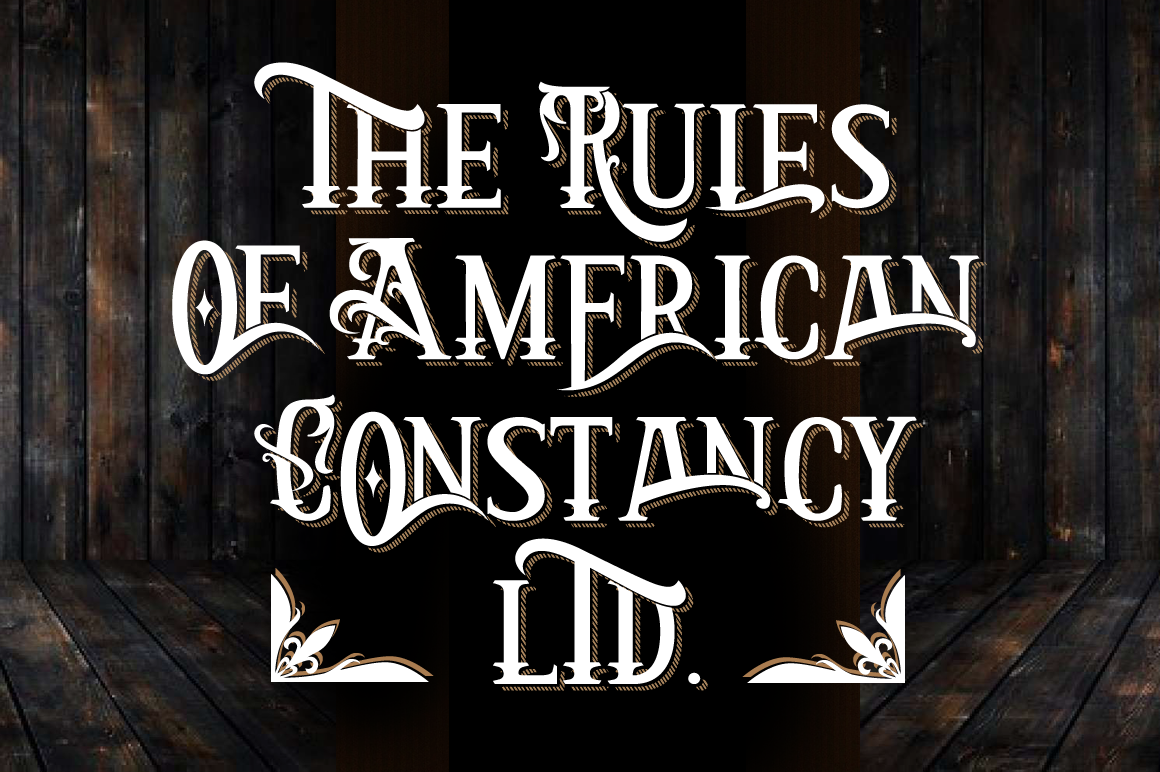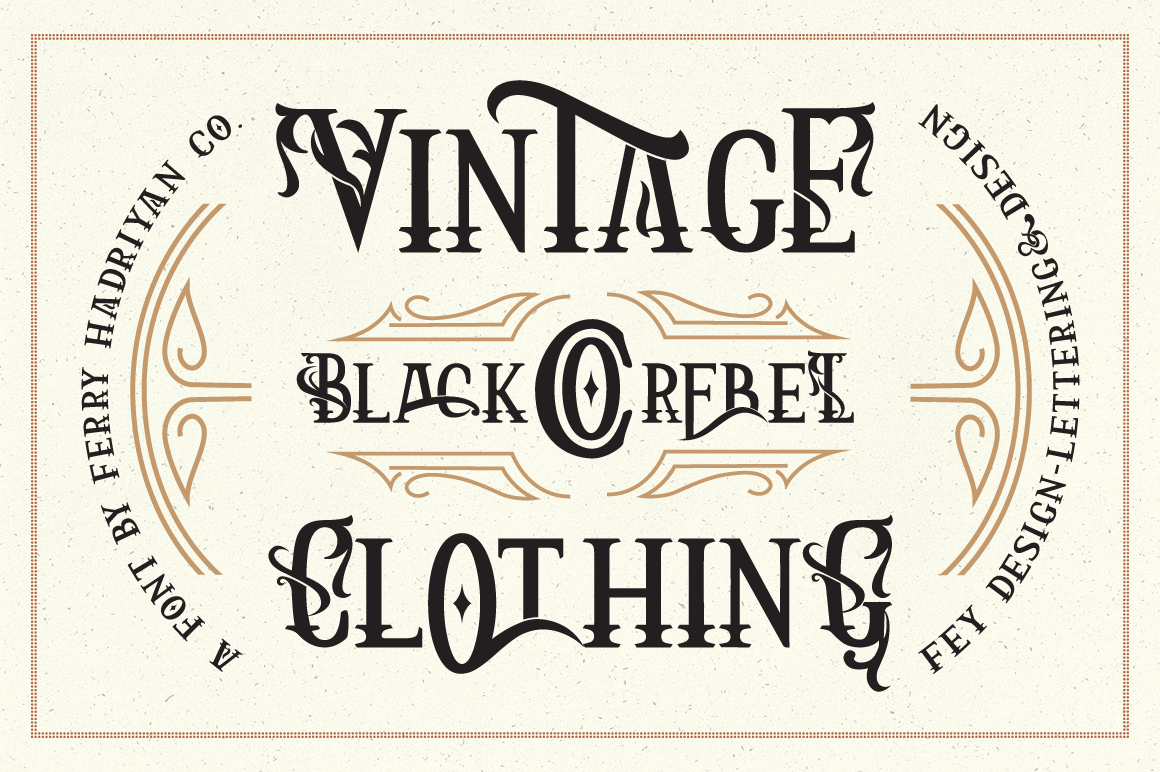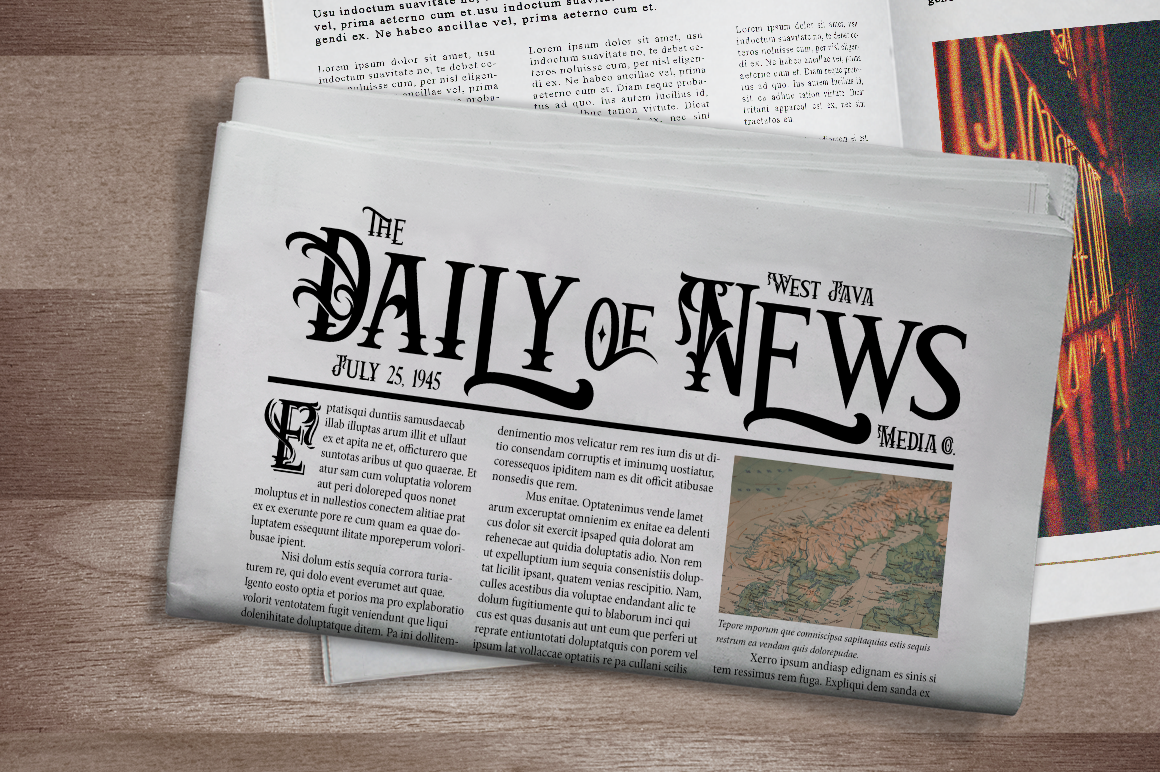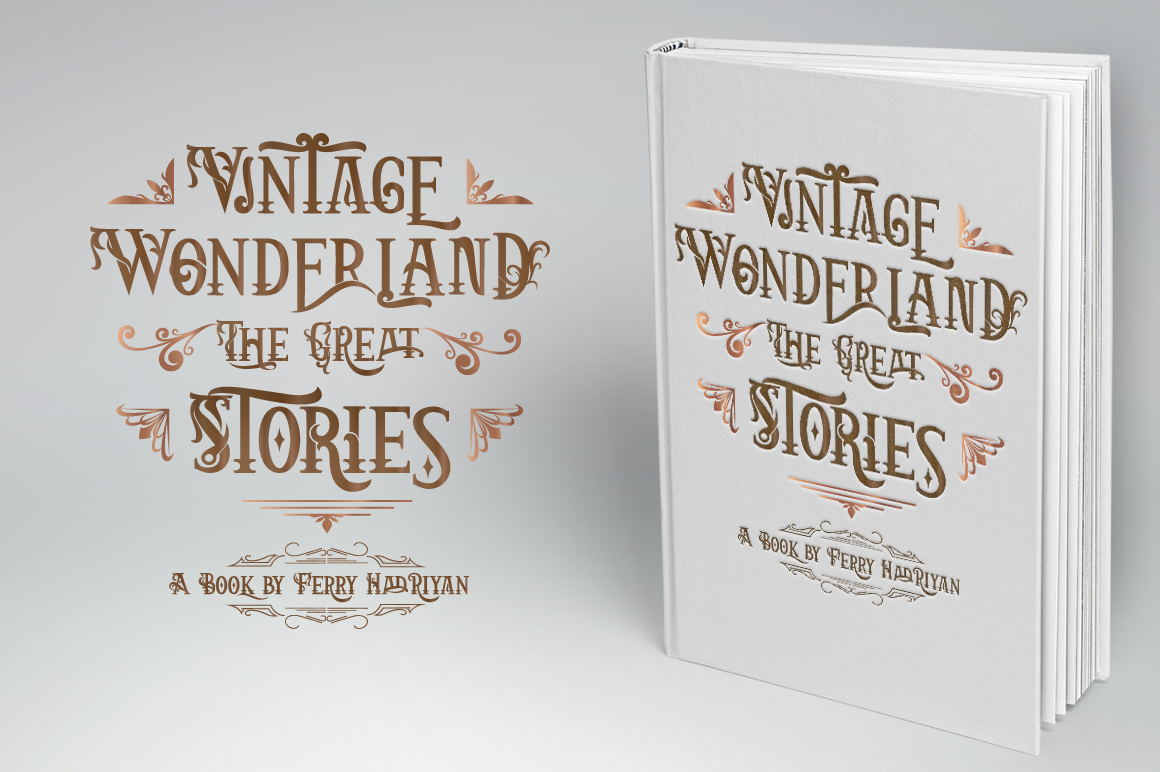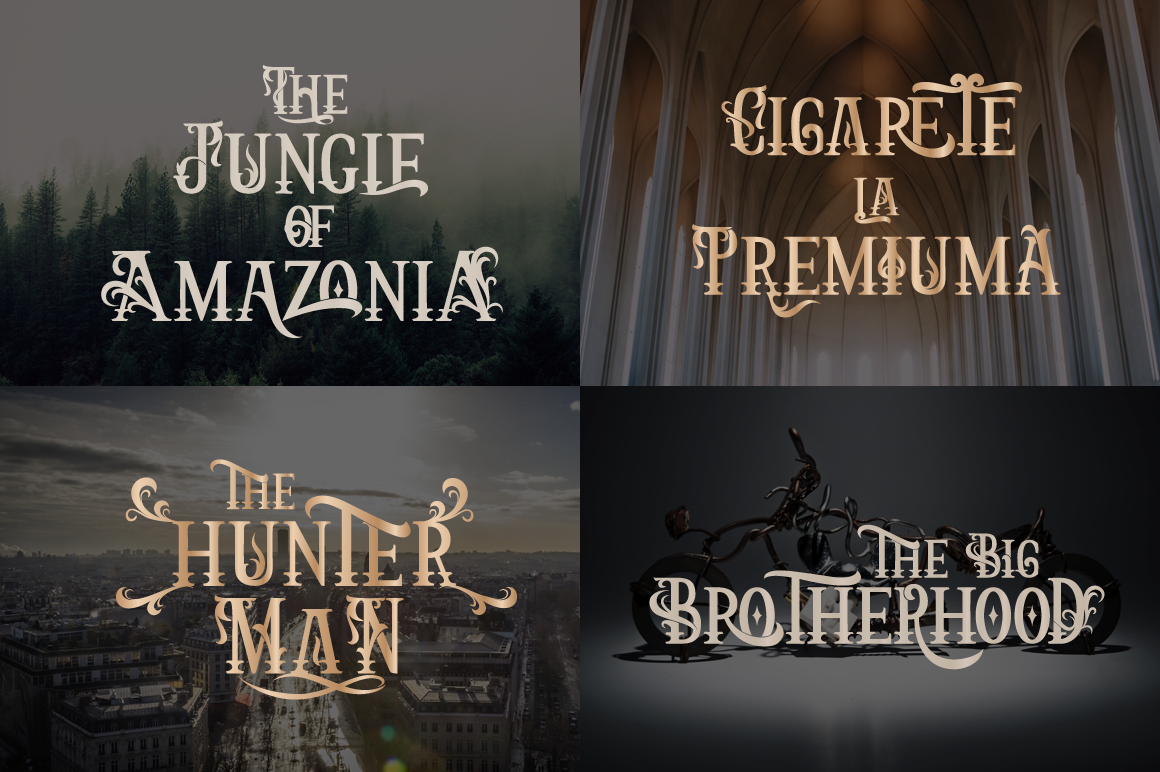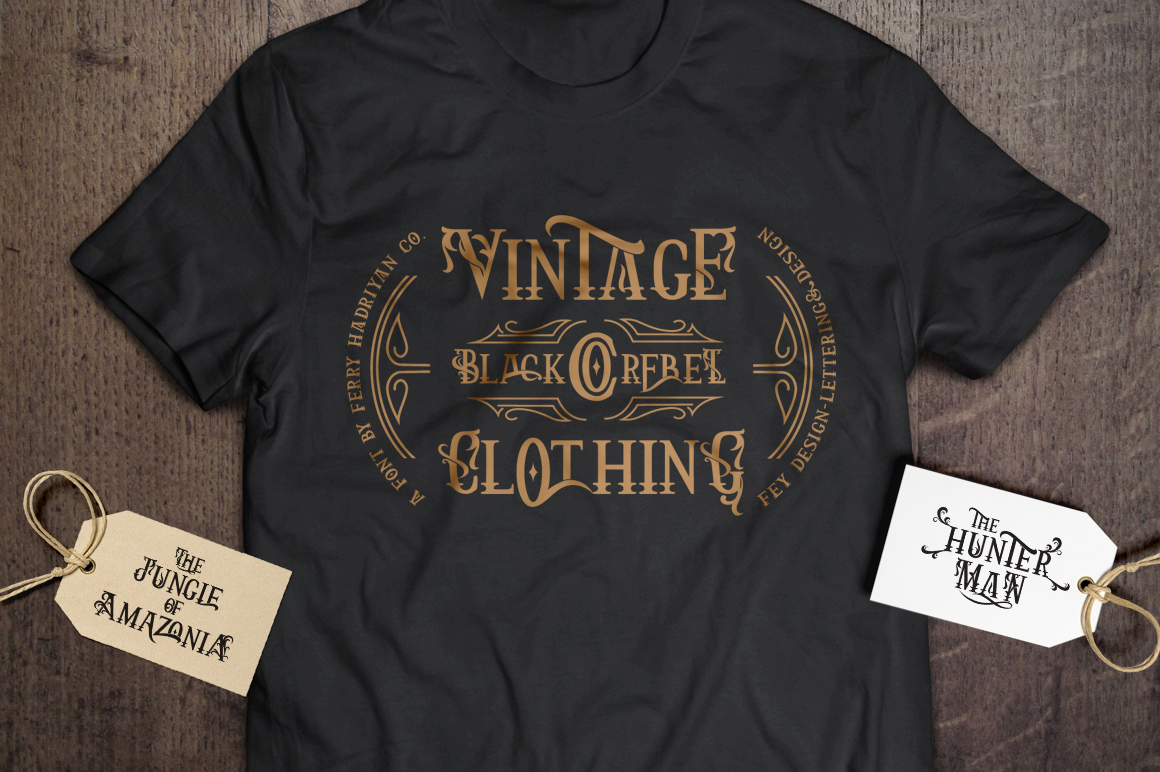
Introducing Arthouse Font: Elevate Your Designs with a Touch of Vintage Elegance
Are you on the hunt for a font that can instantly add a dash of vintage charm to your designs? Look no further than Arthouse, a stunning vintage-inspired font that’s perfect for retro designs and projects. With its extensive collection of alternates and ornaments, Arthouse is a powerhouse of a font that can help you create visually stunning designs that stand out from the crowd.
What Makes Arthouse Font So Special?
Arthouse is more than just a font – it’s a design solution that’s packed with features to help you create unique and captivating designs. Here are some of the key features that make Arthouse a must-have for designers and crafters:
- Vintage Inspiration: Arthouse is inspired by the classic typography of the past, with a modern twist that makes it perfect for contemporary designs.
- Extensive Alternates and Ornaments
- Display Font: Arthouse is specifically designed as a display font, making it perfect for headlines, titles, and other attention-grabbing elements.
- Retro Designs: Arthouse is ideal for creating retro-style designs, from vintage posters to distressed logos.
: With tons of alternates and ornaments, Arthouse offers endless possibilities for customization and creativity.
How to Use Arthouse Font in Your Designs
Arthouse is incredibly versatile and can be used in a wide range of design projects, including:
- Posters and Flyers: Use Arthouse to create eye-catching posters and flyers that grab attention.
- Logos and Branding: Arthouse is perfect for creating unique and memorable logos that reflect your brand’s personality.
- Social Media Graphics: Add a touch of vintage charm to your social media graphics with Arthouse.
- Packaging Design: Use Arthouse to create stunning packaging designs that stand out on store shelves.
Tips and Tricks for Getting the Most Out of Arthouse
To help you get the most out of Arthouse, here are some tips and tricks to keep in mind:
- Experiment with Alternates and Ornaments: Don’t be afraid to try out different alternates and ornaments to create unique and interesting effects.
- Mix and Match with Other Fonts: Arthouse pairs well with a wide range of fonts, so don’t be afraid to experiment with different combinations.
- Use Arthouse for Headlines and Titles: Arthouse is specifically designed for headlines and titles, so use it to create attention-grabbing elements.
Why Designers and Crafters Love Arthouse
Arthouse has quickly become a favorite among designers and crafters, and for good reason. Here are some reasons why:
- Unique and Versatile: Arthouse offers a unique and versatile design solution that’s perfect for a wide range of projects.
- Easy to Use: Arthouse is incredibly easy to use, even for those with limited design experience.
- High-Quality Design: Arthouse is designed to high standards, ensuring that your designs look professional and polished.
In conclusion, Arthouse is a stunning vintage-inspired font that’s perfect for designers and crafters looking to add a touch of elegance and sophistication to their designs. With its extensive collection of alternates and ornaments, Arthouse offers endless possibilities for creativity and customization. Whether you’re working on a retro-style poster or a modern logo design, Arthouse is the perfect choice.